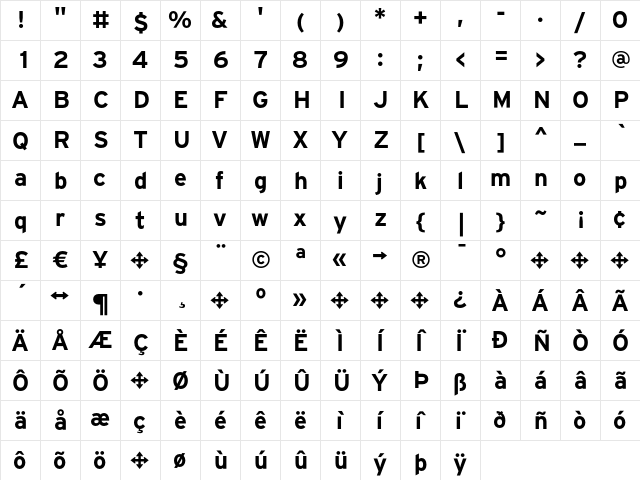
InterstatePlus Bold
Design Context for InterstatePlus Typeface
InterstatePlus offers clean, dependable letterforms without strong stylistic allegiance, making it a practical choice for designers who need flexibility. The heavy weight commands attention and anchors typographic hierarchies.
Pro Tip: Pair InterstatePlus with a font of contrasting weight or personality to build a more expressive typographic hierarchy.